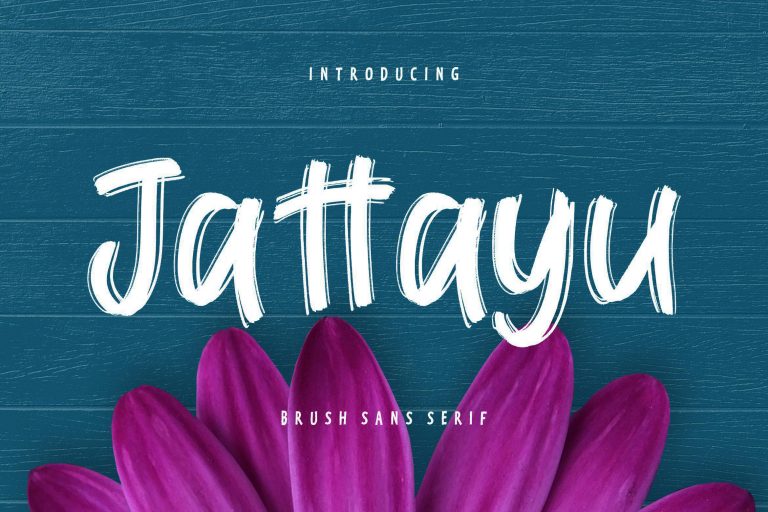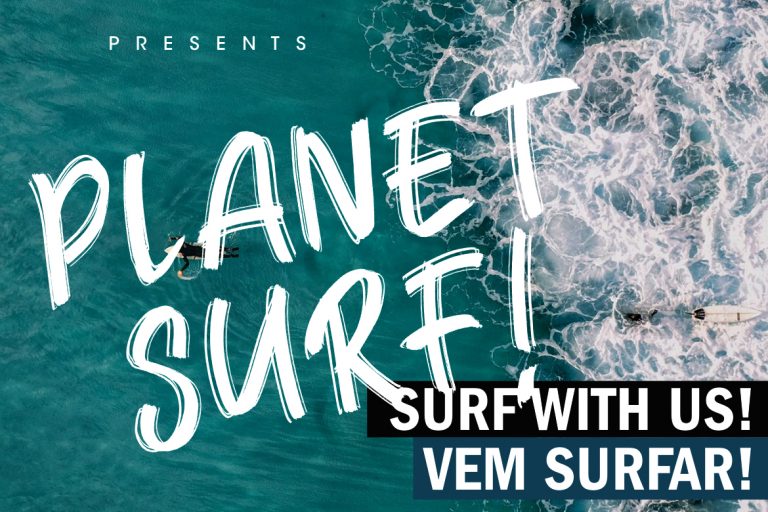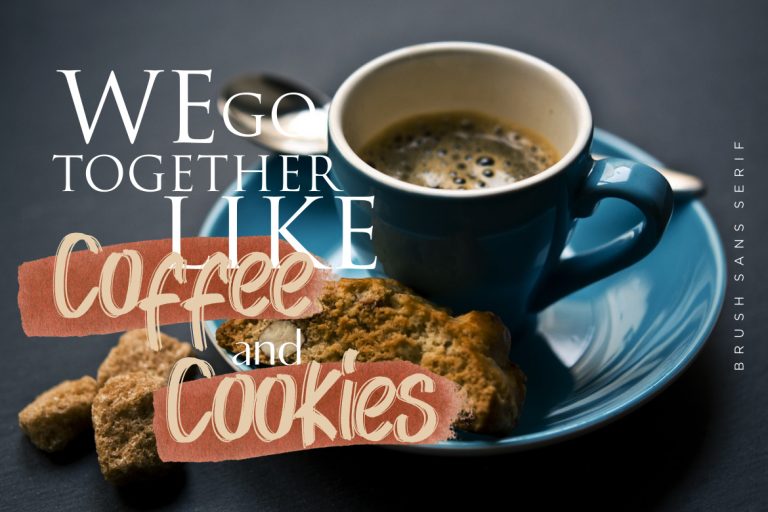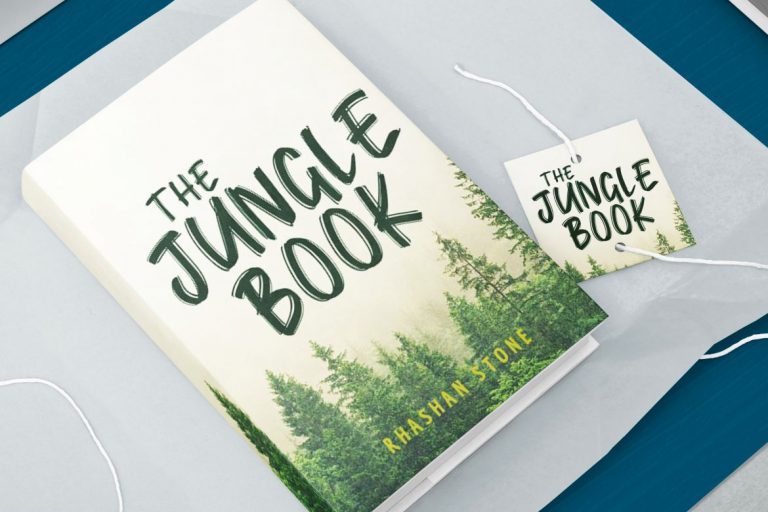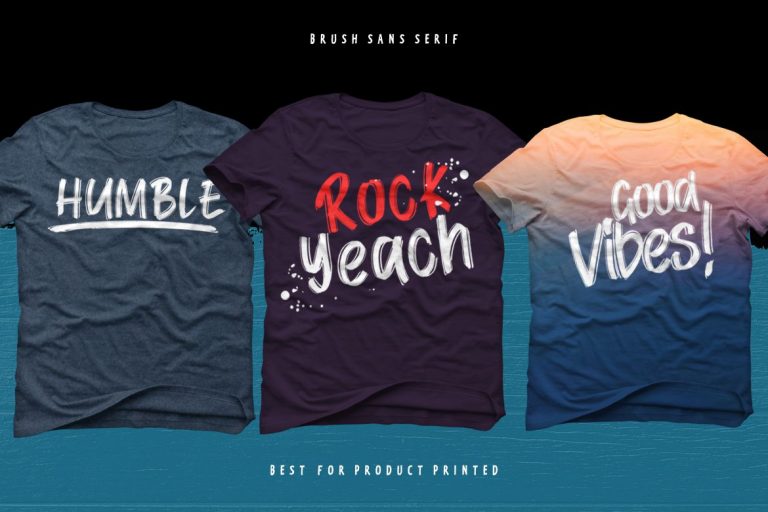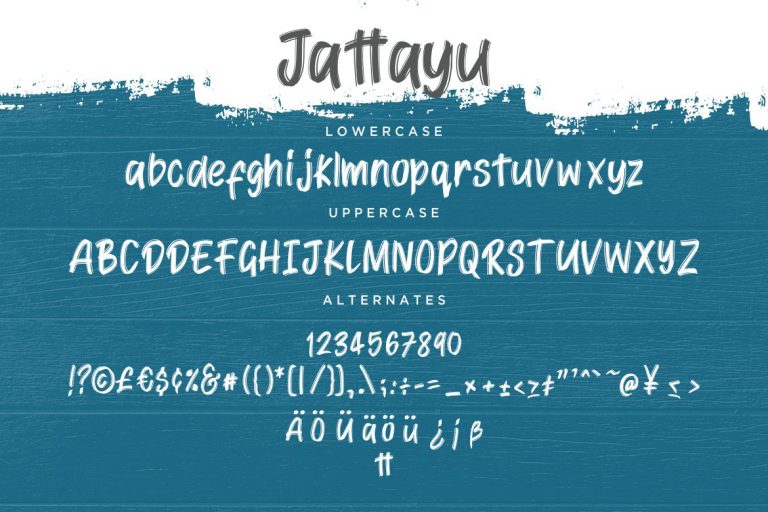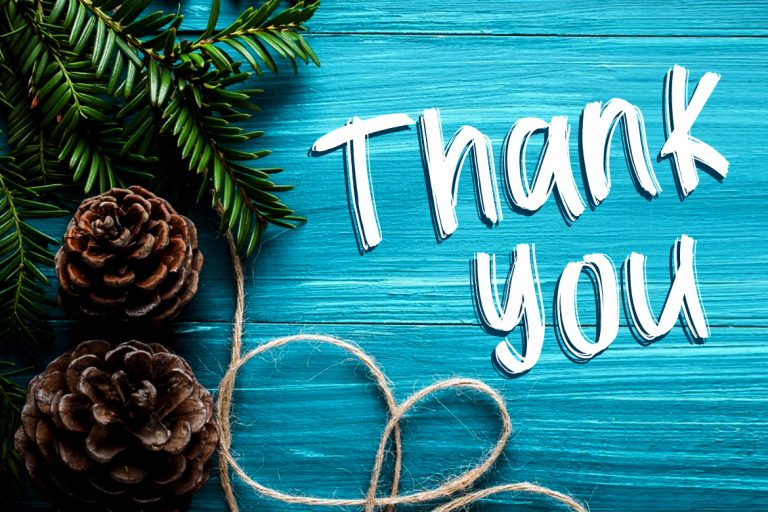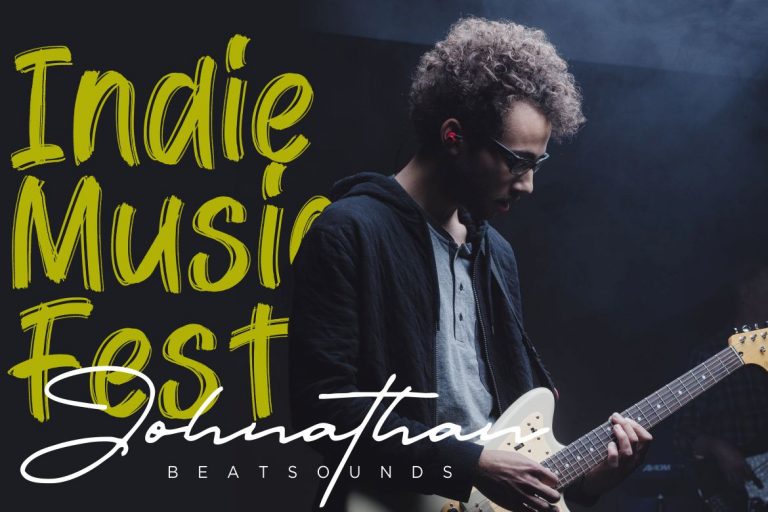
Jattayu is sans serif font with rough brush style make this font looks natural and catchy.
Jattayu is perfect for branding projects, logo, wedding designs, social media posts, advertisements, product packaging, product designs, label, photography, watermark, invitation, stationery and any projects that need handwriting taste.
- Fonts include multilingual support for; ä ö ü Ä Ö Ü ß ¿ ¡
Jattayu Sans Serif Brush